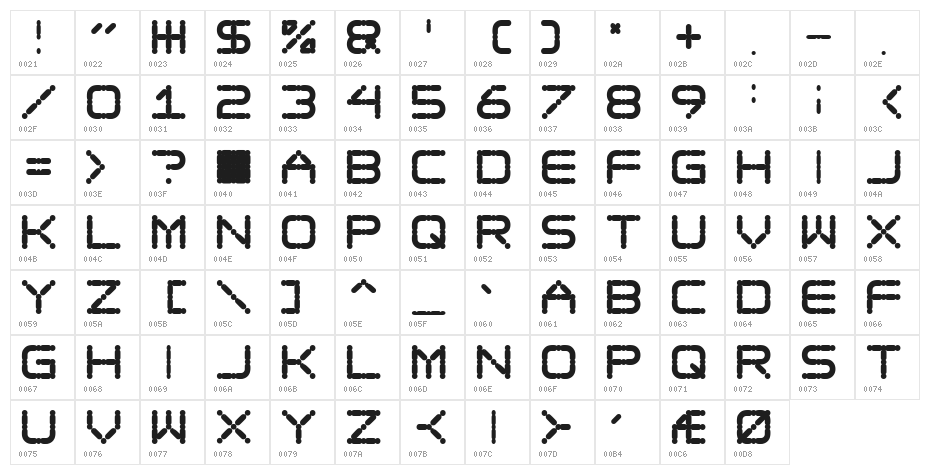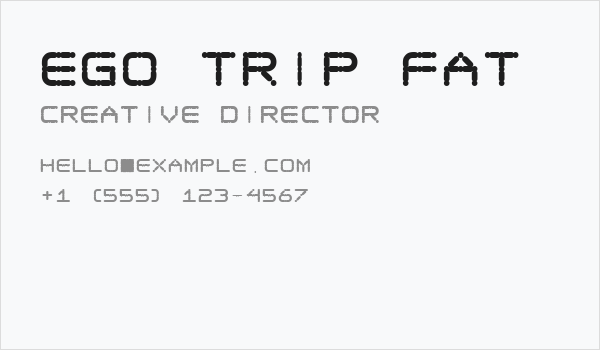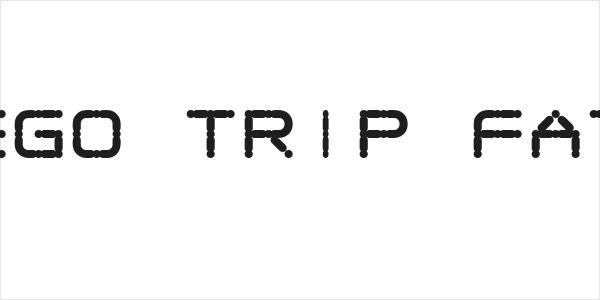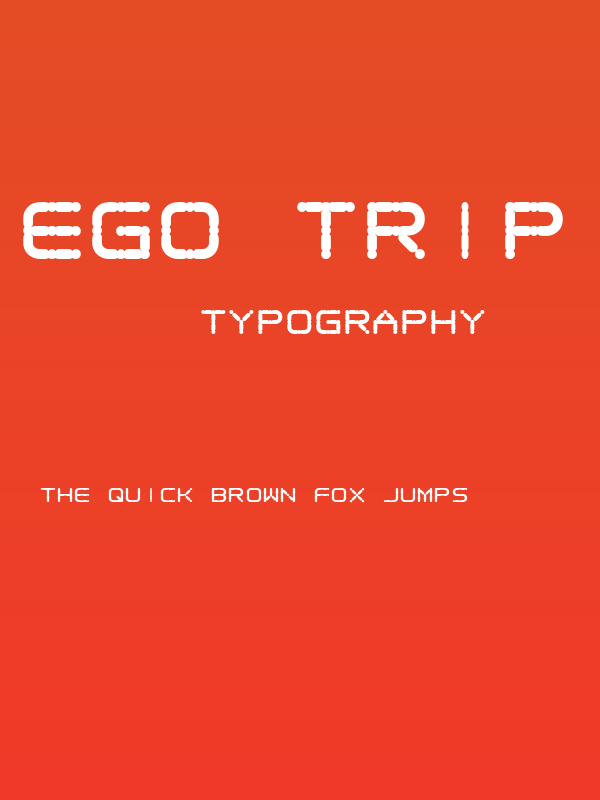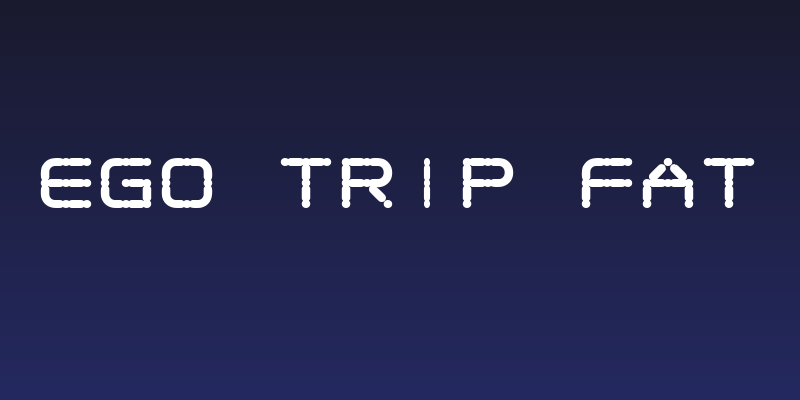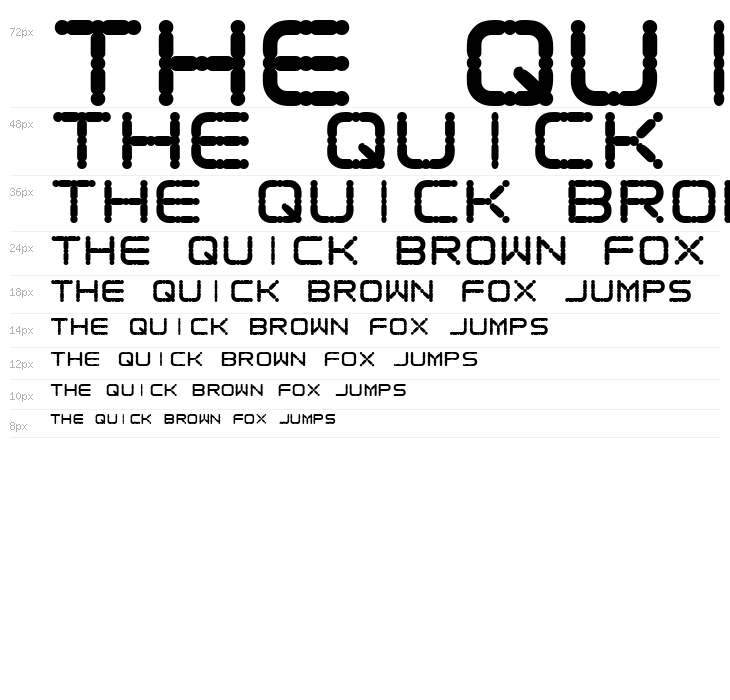
Ego trip Fat Font
Ego trip Fat Description
This font features a unique, futuristic design with a dotted pattern that forms each character. The letters are constructed with a series of small, evenly spaced dots, giving it a digital and modern appearance. The uppercase and lowercase letters maintain a consistent style, with rounded edges and a geometric structure. Numbers and special characters follow the same dotted theme, ensuring uniformity across all glyphs. The font's distinct style makes it stand out, suitable for projects that require a tech-savvy or avant-garde look.
| Proposed Projects | Ideal for tech-related branding, digital art projects, modern posters, and innovative product packaging. |